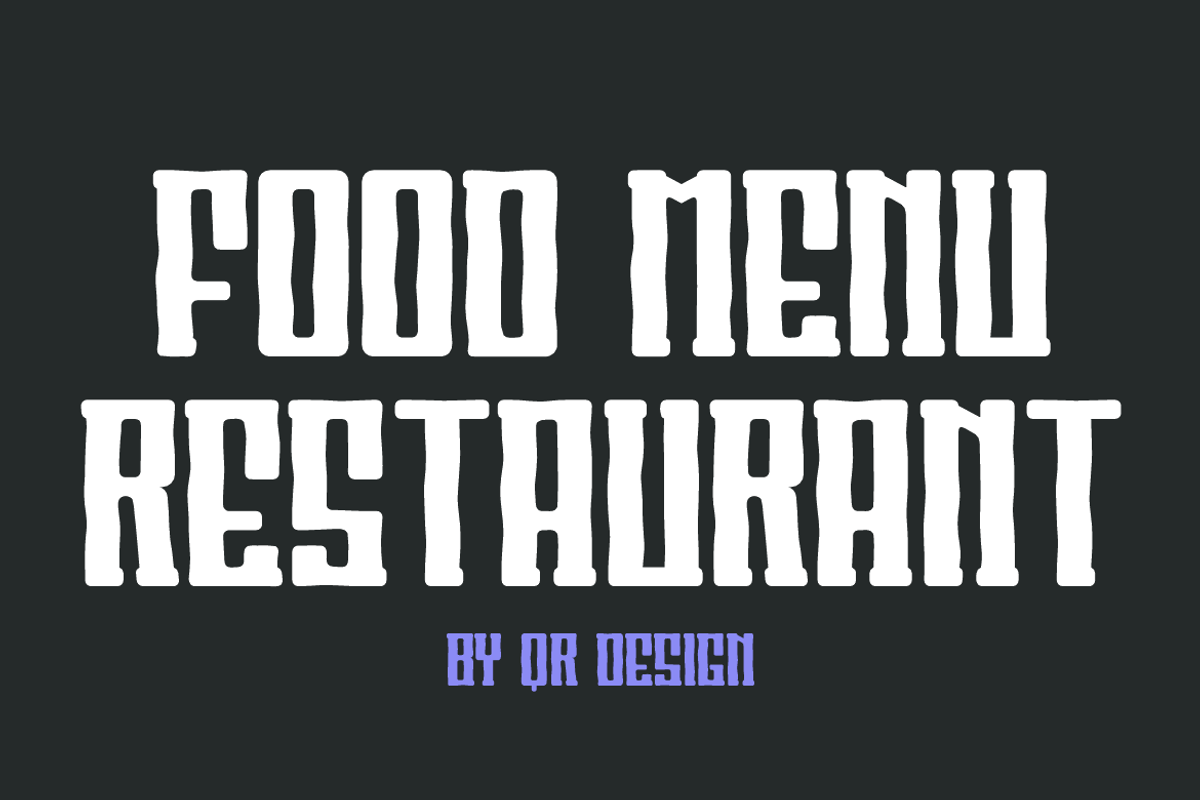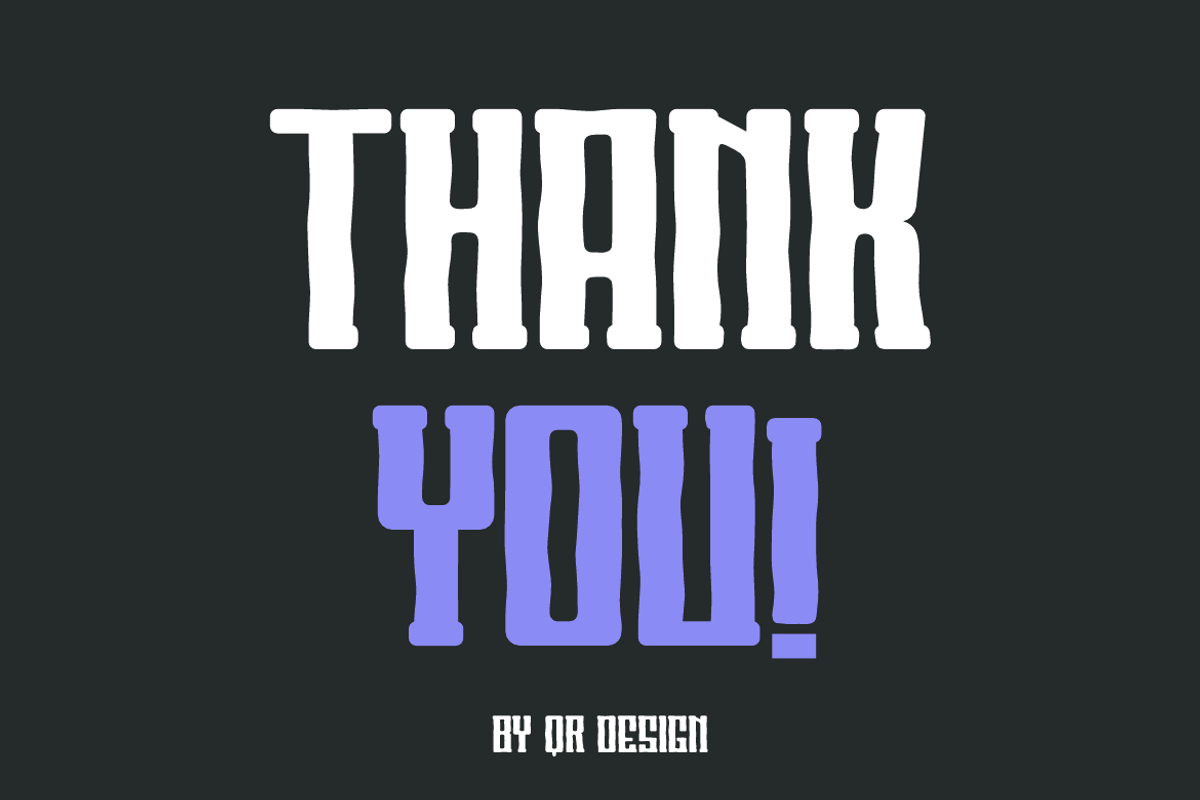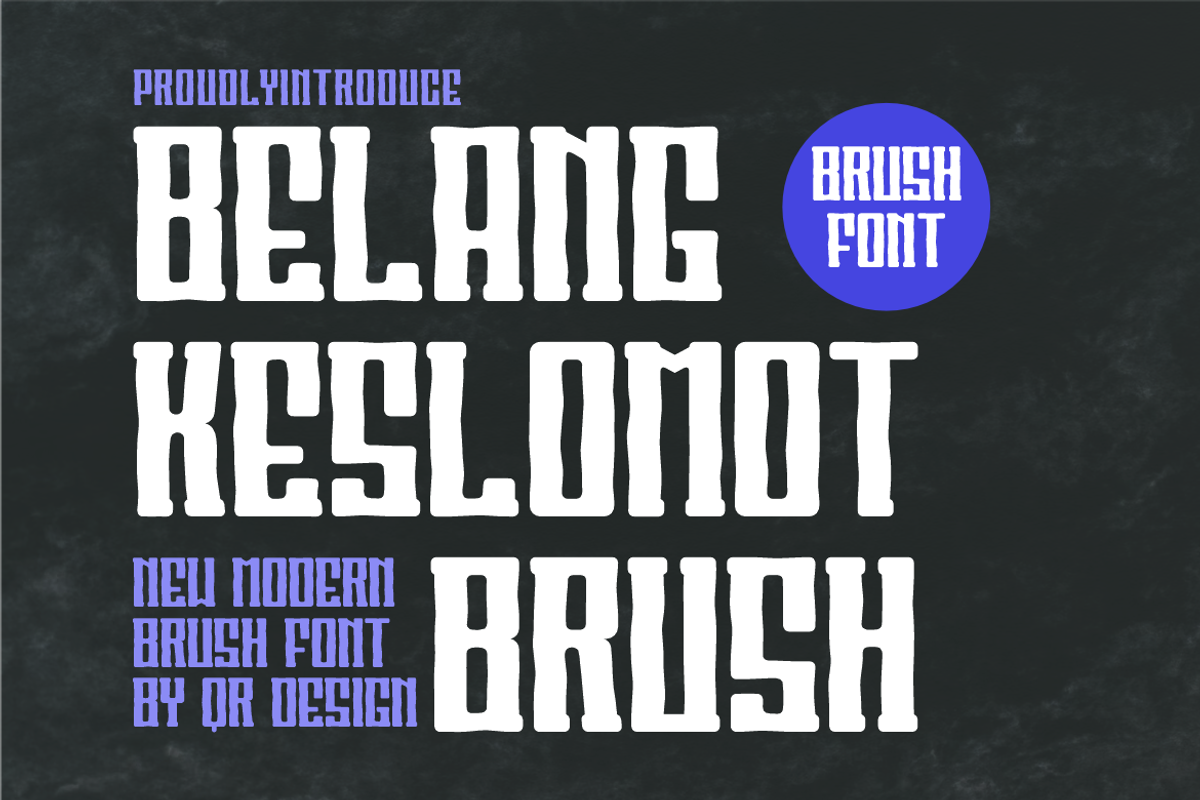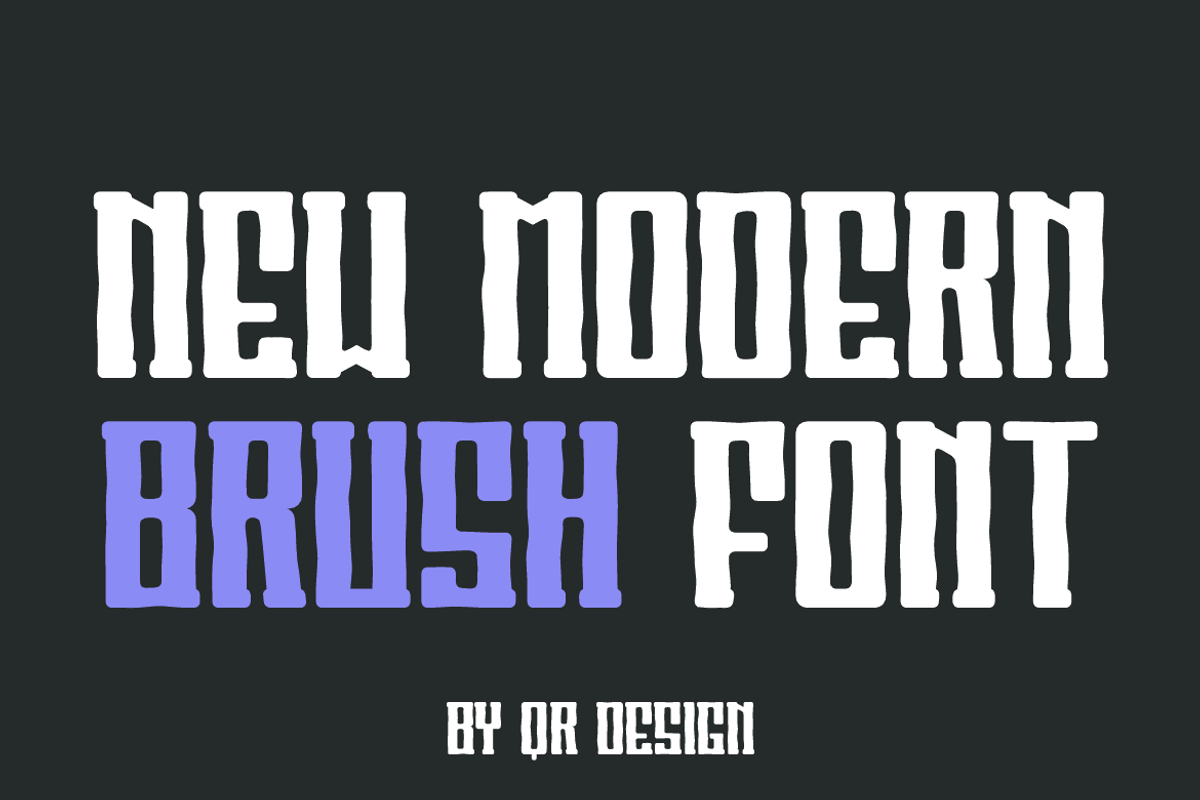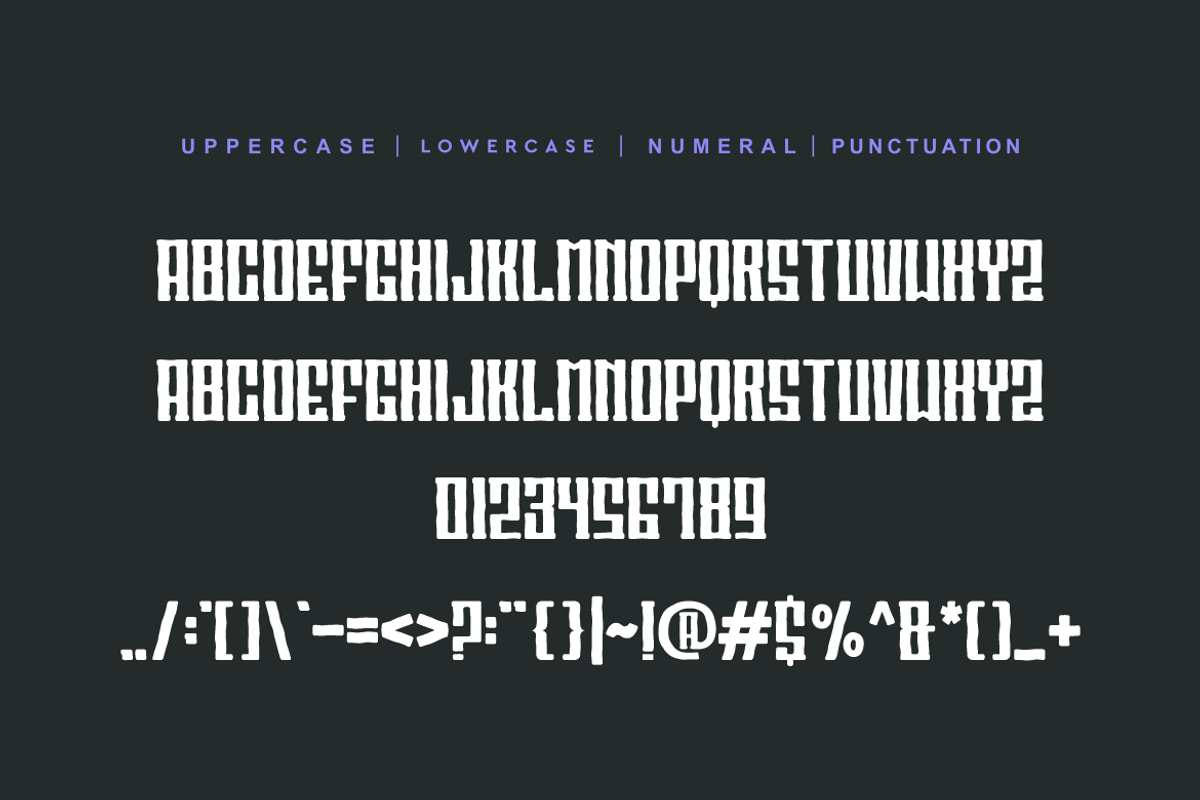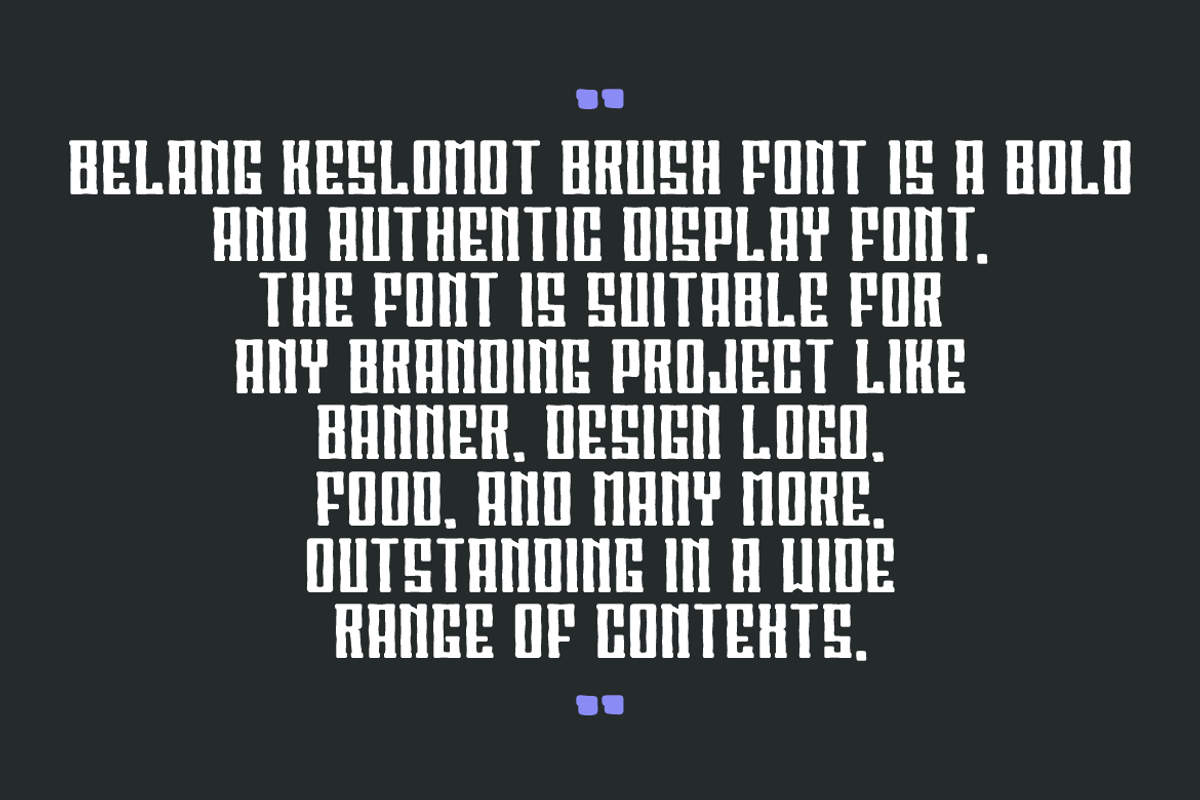
Belang Keslomot Brush
Belang Keslomot Brush Font is a bold and authentic display font. The font is suitable for any branding project like logo, sport, food, and many more. Outstanding in a wide range of contexts.